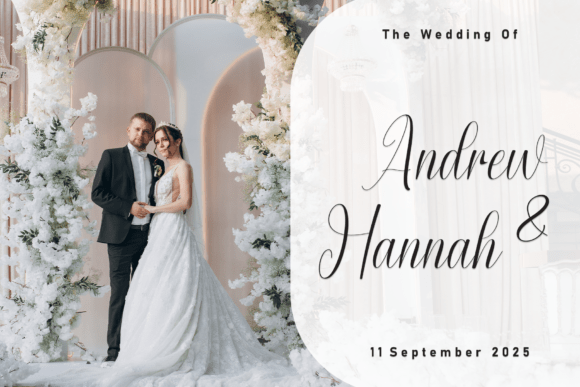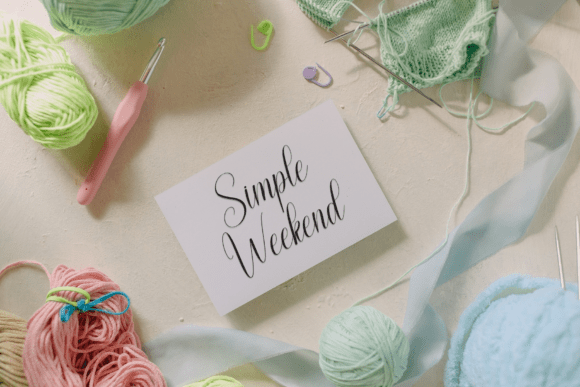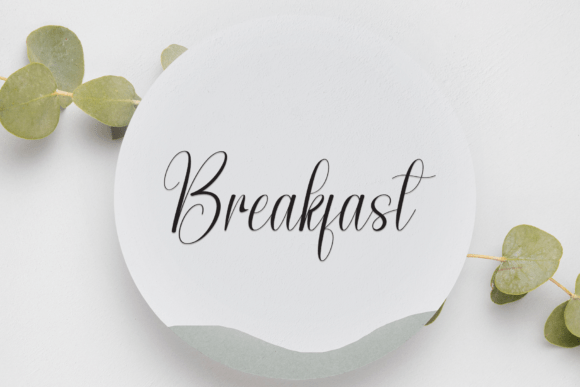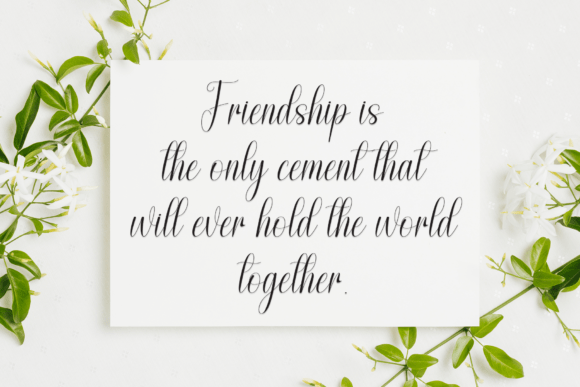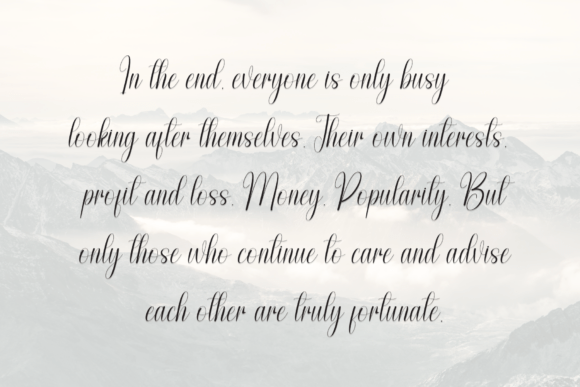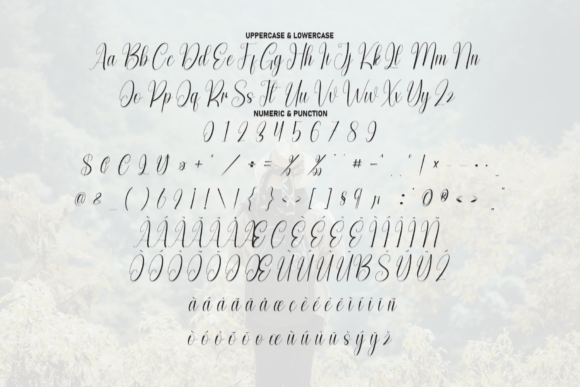
Embracing the Art of Whimsy: The Allure of Adventure Font
There’s something magical about sitting down with a cup of coffee, a blank sheet of paper, and a pen that feels like an extension of your hand. The moment you start to create, the world around you melts away, and all that’s left is the thrill of bringing your imagination to life. For designers, this feeling is a constant companion, guiding us through the process of crafting unique and captivating visual experiences. One tool that can elevate this creative journey is the Adventure Font, a sophisticated handwritten script font that embodies the essence of refined elegance and stylish flair.
With its flowing curves and smooth connections, the Adventure Font is perfect for branding, invitations, and any project that requires a personal touch with a hint of romantic charm. Its unique balance of decorative swashes and clear, legible letterforms makes it a valuable asset for designers seeking to add a touch of sophistication and whimsy to their work. Whether you’re a seasoned pro or just starting out, the Adventure Font is an excellent choice for anyone looking to add a dynamic, artistic quality to their designs.
Key Features of Adventure Font
- Font Family: Adventure Font offers a unique and adventurous font family with various styles, including regular, bold, italic, and bold italic.
- Unique Characteristics: The Adventure Font features a distinctive and bold design, with a mix of modern and vintage elements, making it perfect for creating eye-catching headlines and titles.
Adventure Font Review
When I first laid eyes on the Adventure Font, I was immediately drawn to its playful, energetic vibe. The font’s unique blend of modern and handwritten elements makes it perfect for designs that need a bit of personality.
- ✨ The font’s most notable feature is its versatility. It works well in both digital and print formats, making it a great choice for designers who need to adapt to different mediums.
- ✨ The font’s bold, confident lines add a sense of adventure and excitement to any design. It’s perfect for titles, headings, and other text elements that need to grab attention.
- ✨ The font is highly customizable, allowing designers to adjust its weight, width, and other characteristics to suit their specific needs.
- ⚠️ The font may be a bit too playful for more formal or professional designs. If you’re working on a project that requires a more serious tone, you may want to look elsewhere.
- ⚠️ The font’s handwritten elements can sometimes be a bit inconsistent, which may affect its overall legibility.
Overall, I think the Adventure Font is a great choice for designers who want to add a bit of excitement and personality to their projects. While it may not be suitable for every design, it’s definitely worth considering for projects that need a bold, adventurous vibe.
The Adventure Font is ideal for creating eye-catching titles, headings, and labels for outdoor-themed designs, such as adventure travel brochures, hiking maps, and nature-inspired graphics. To get the most out of the font, experiment with different font sizes, colors, and combinations to create a unique look.